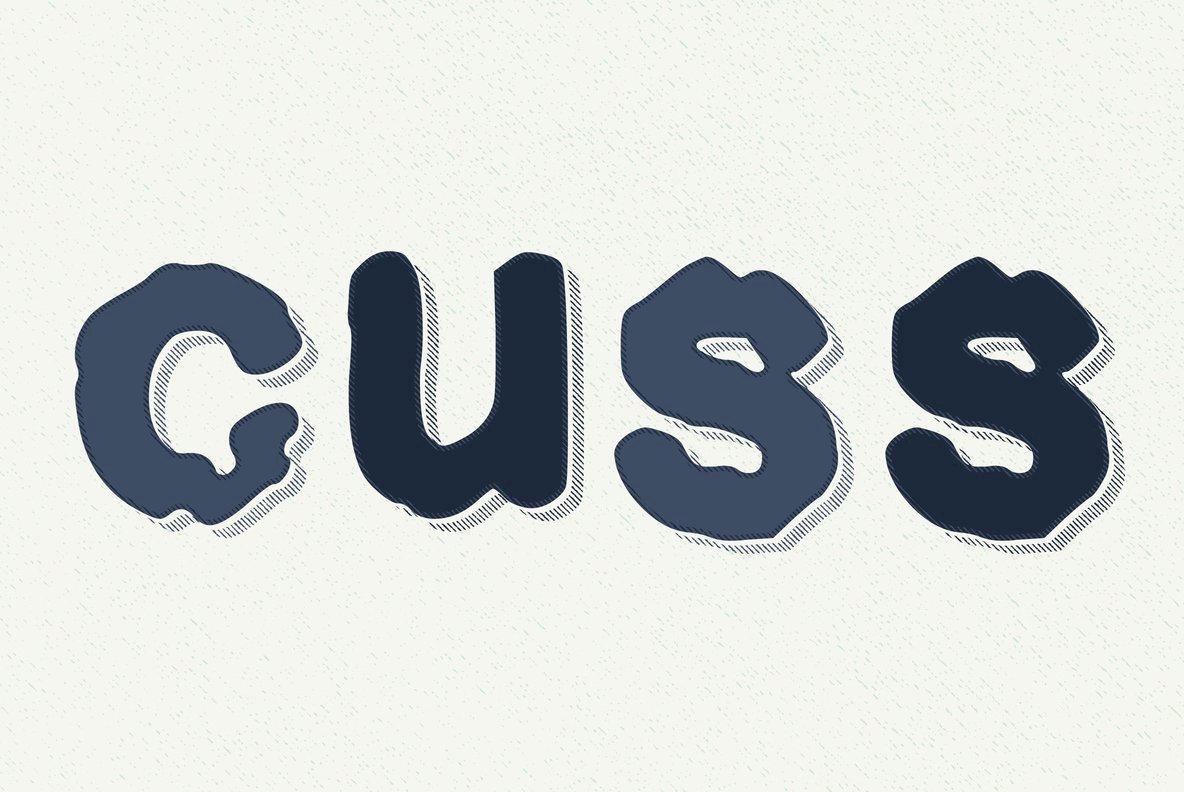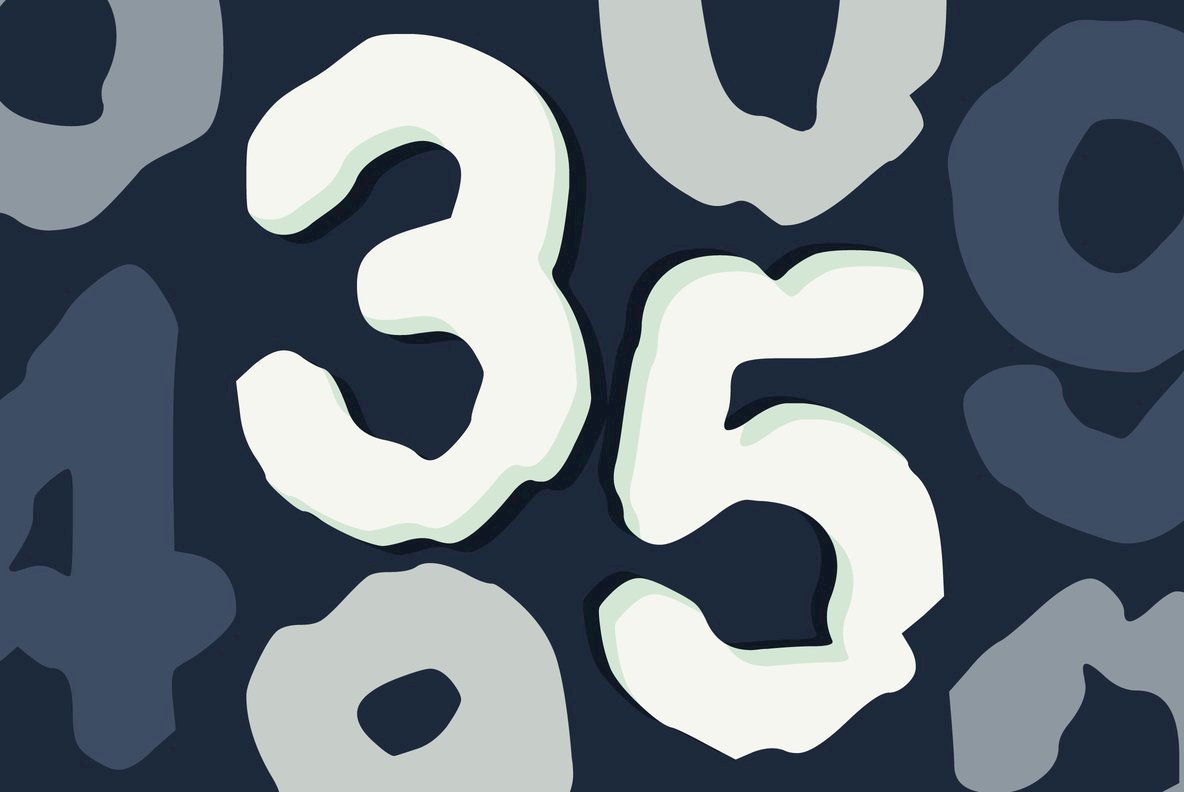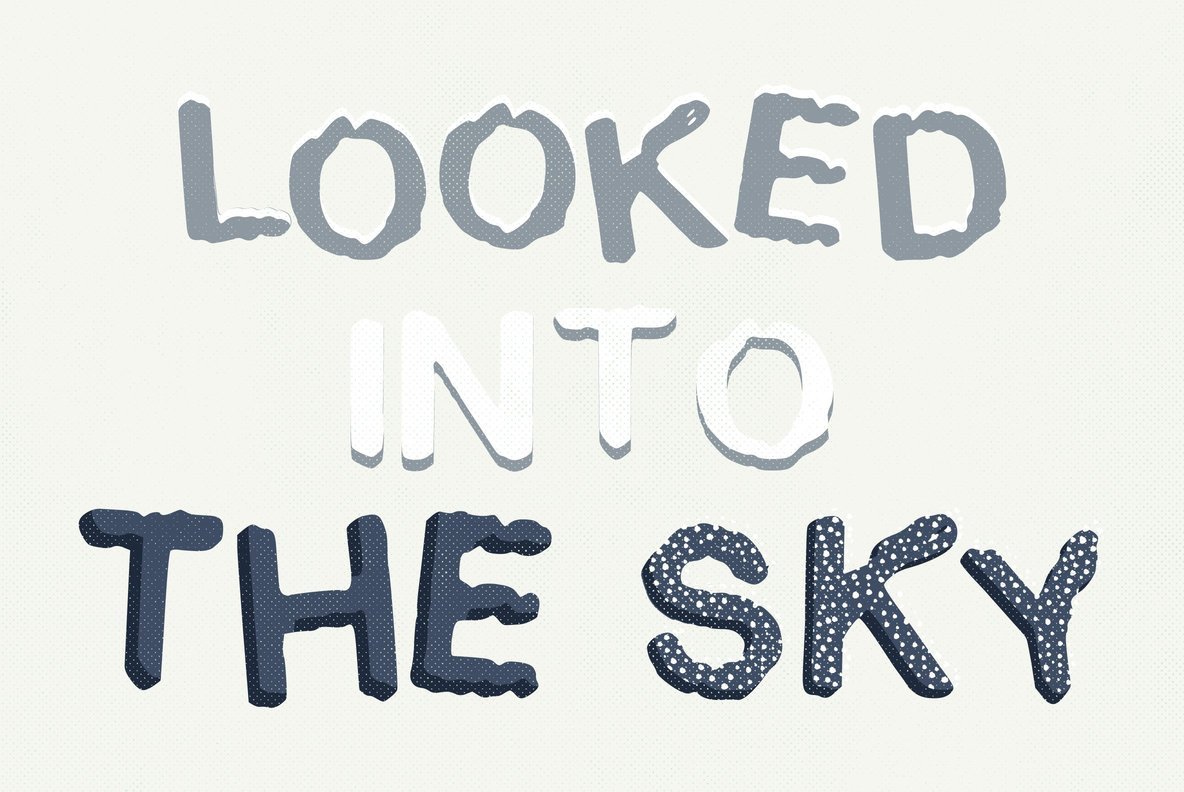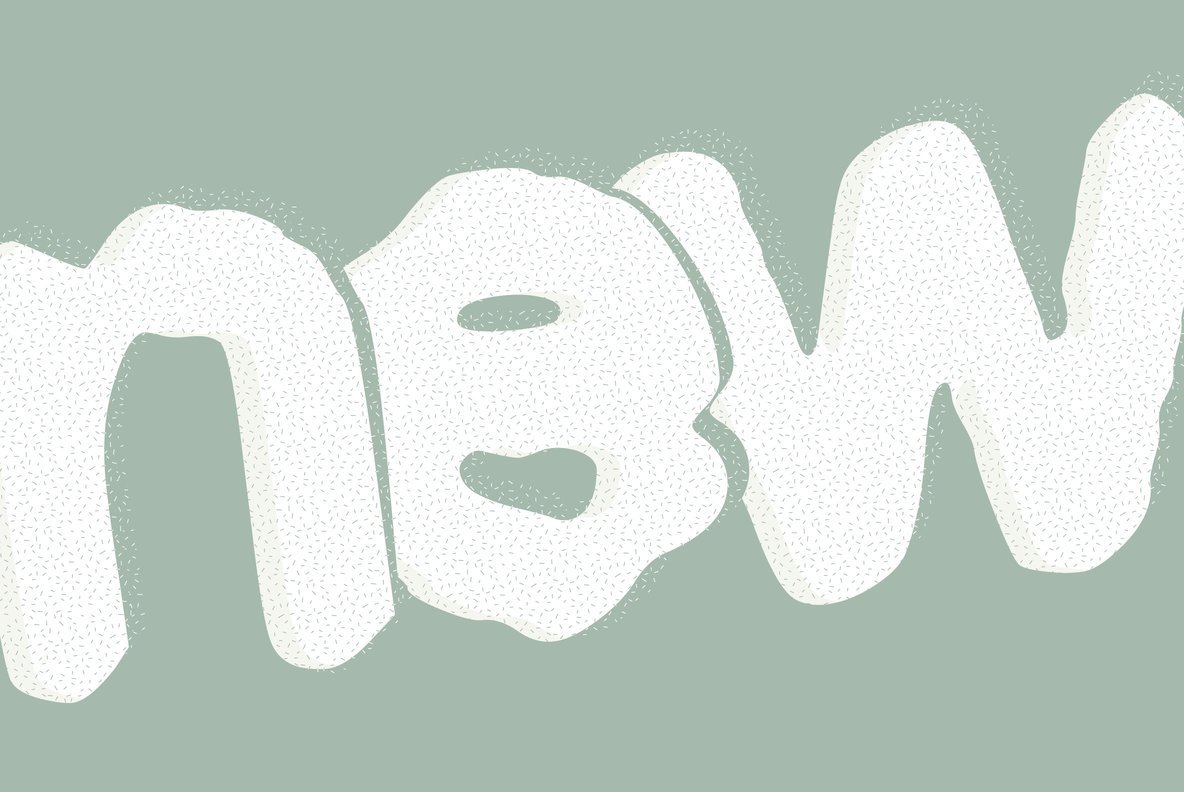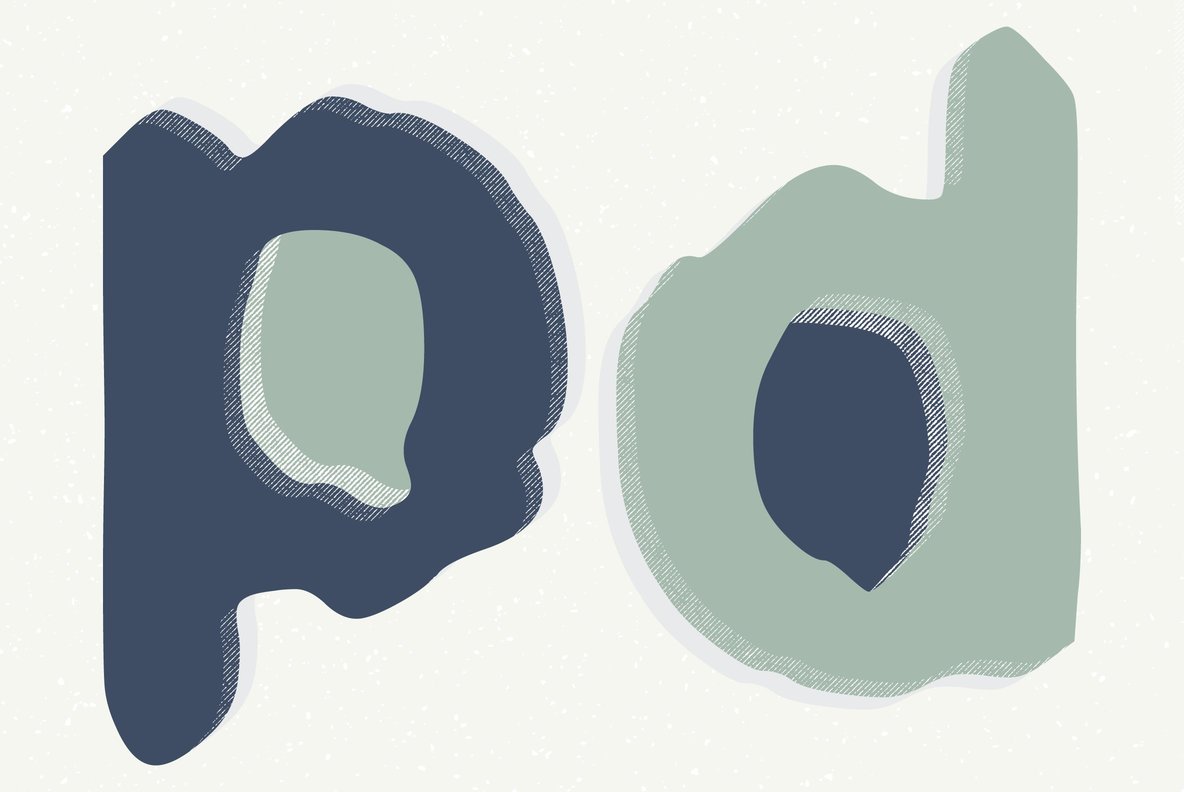
Smoke Damage Font
Smoke Damage
Take a deep breathe now, this one is a cool, wavy hand written display type.
This font was created by Benjamin A Melville and features a full upper and lower case alphabet including 0-9 and some punctuation, please see glyphs list for all characters you will be able to work with.